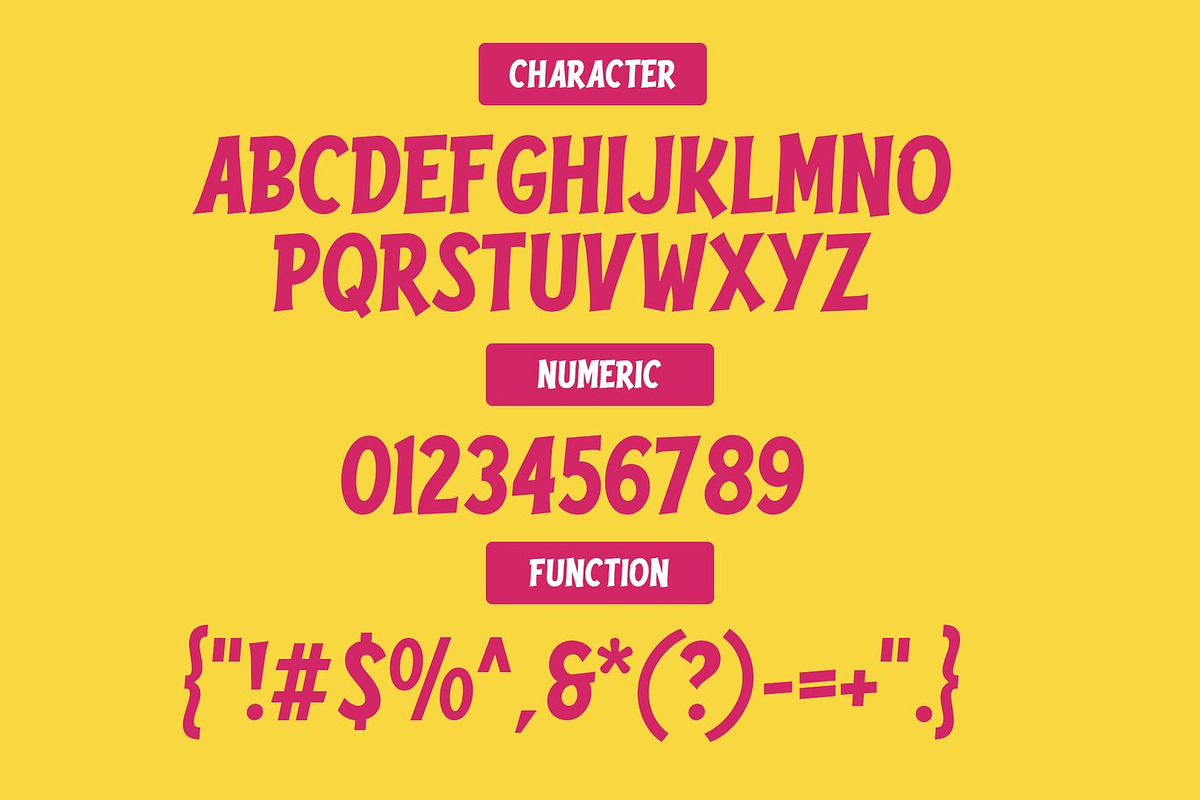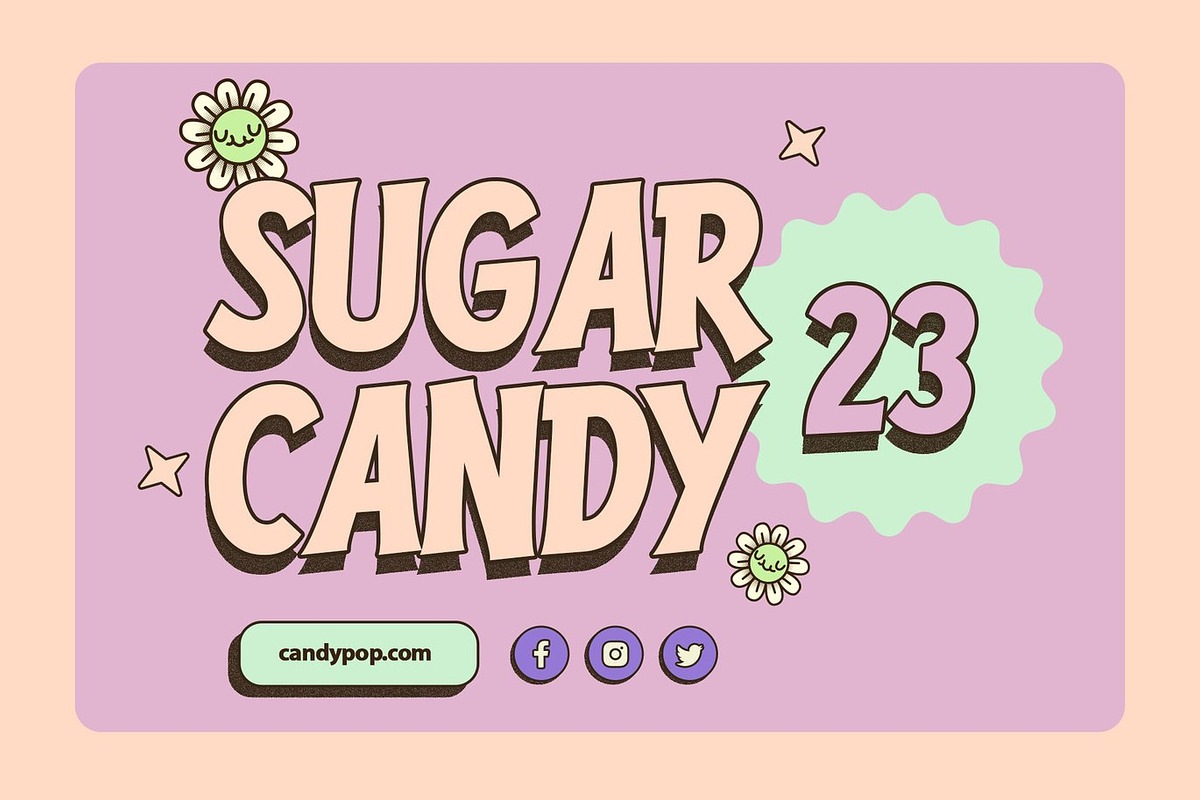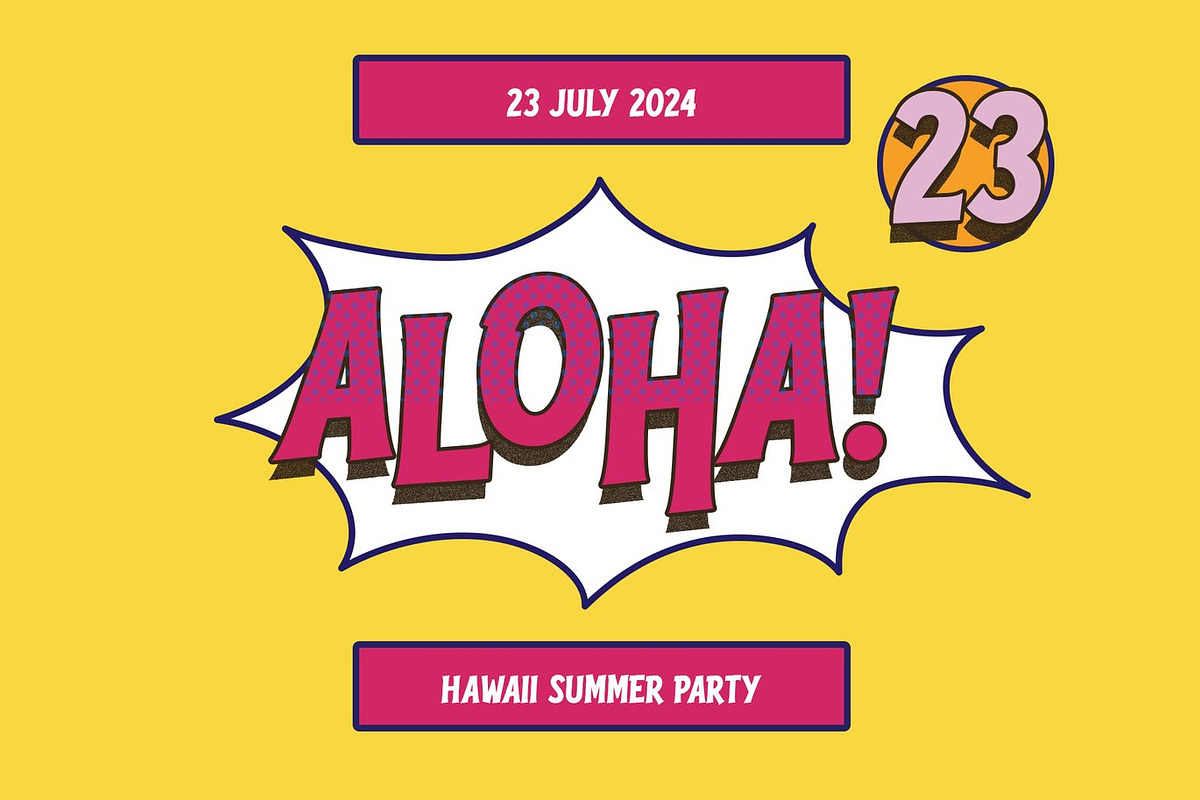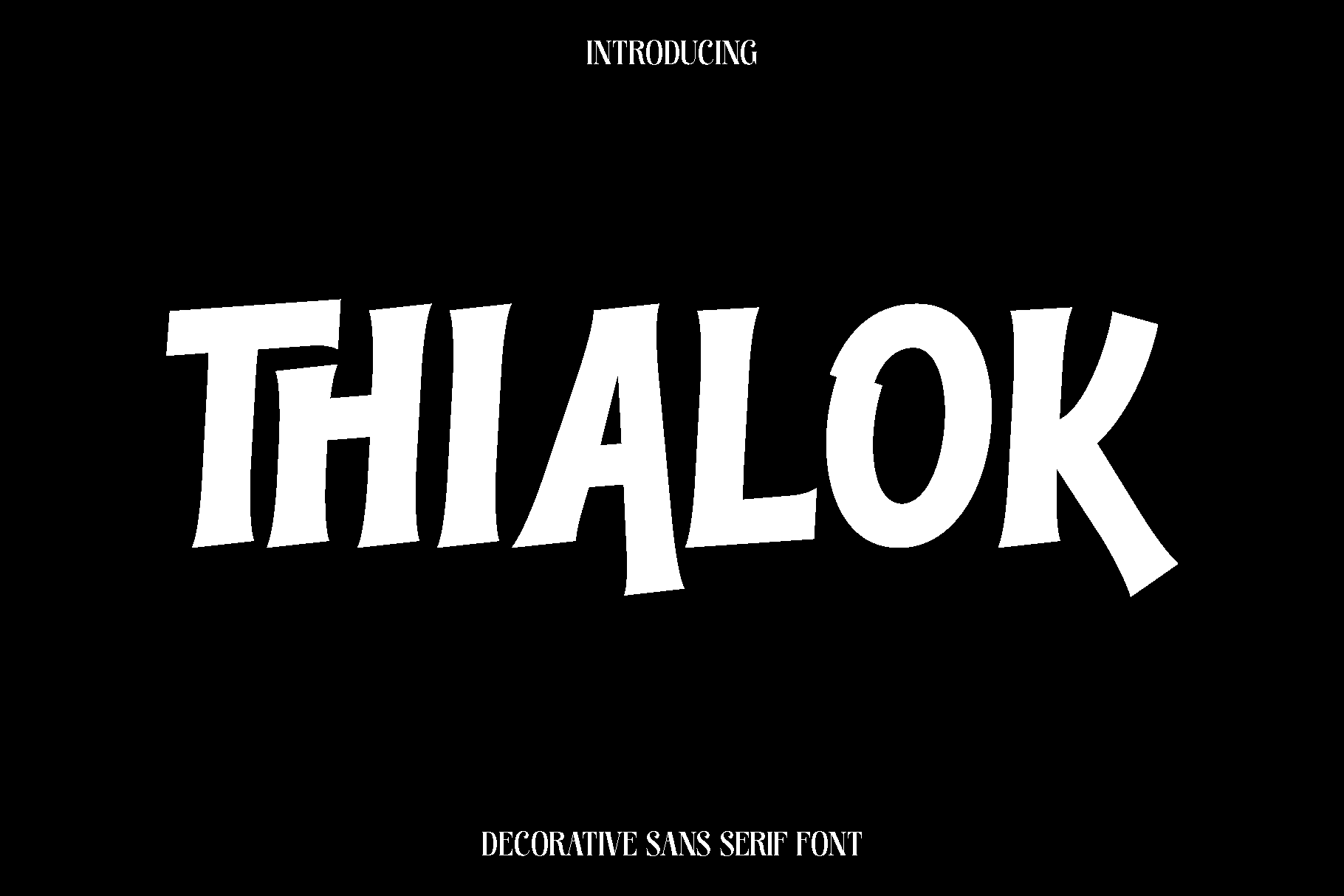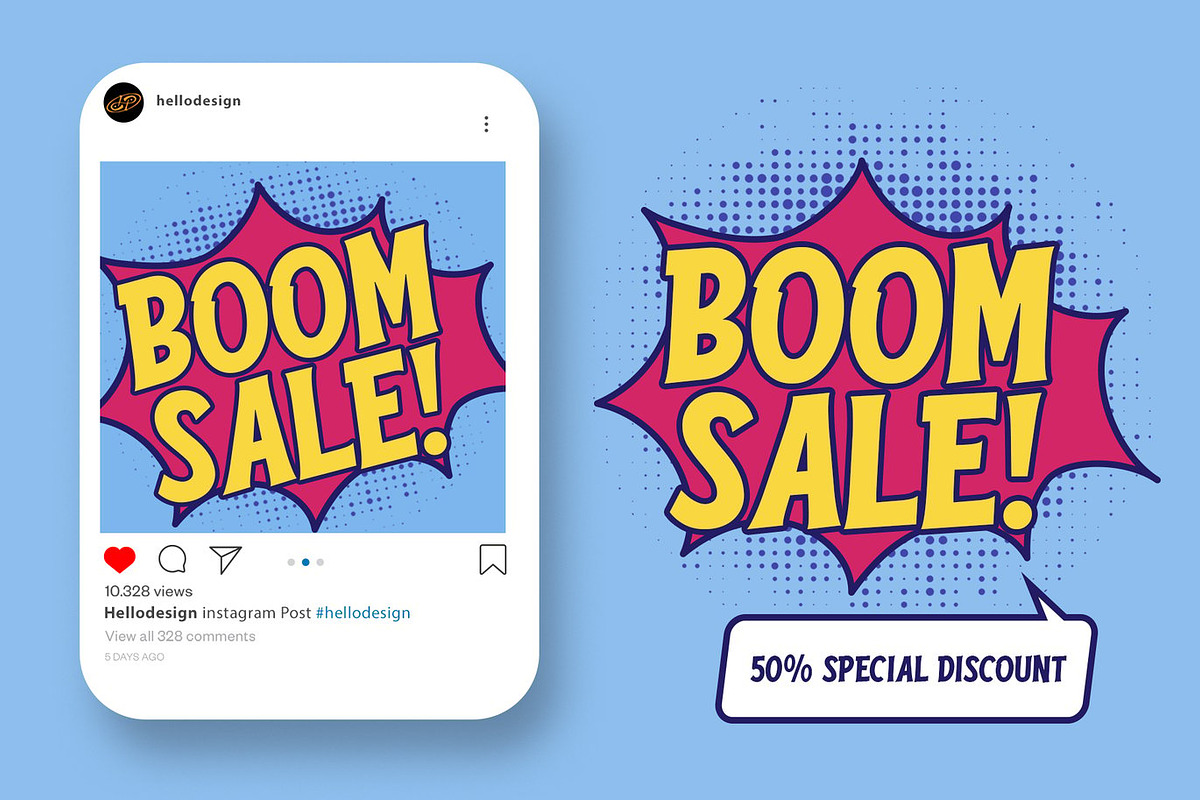
Thialok - Decorative Sans Serif Font
Thialok is a thoughtfully crafted typeface designed to bring clarity, style, and versatility to a wide range of creative projects. Built with balanced proportions and clean letterforms, Thialok carries a modern personality that feels both professional and expressive. Its design focuses on readability while maintaining a distinctive character, making it an excellent choice for designers who want typography that works beautifully across different contexts.
Inspired by contemporary editorial and branding trends, Thialok adapts seamlessly from bold statements to subtle text applications. It shines in books, magazines, logos, brand identities, photography overlays, quotes, blog headers, posters, and advertising materials. Whether used for print or digital layouts, Thialok delivers a polished and cohesive look that enhances the overall visual experience.
The font feels approachable, modern, and dependable, making it suitable for both creative and corporate environments. Its functional design ensures consistency and legibility, while its refined details add a touch of personality that keeps your work engaging and memorable. Thialok is a reliable typographic tool for designers who value flexibility and clean aesthetics.
Thialok Font Features:
• Uppercase and lowercase characters
• Numerals and functional symbols
• Multilingual support
• Clean and versatile letterforms
Thialok is designed to support your creativity across countless projects, helping you build designs that are clear, stylish, and impactful.